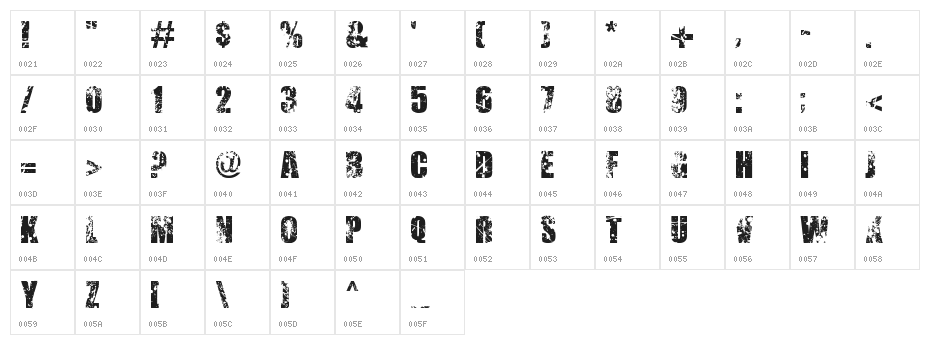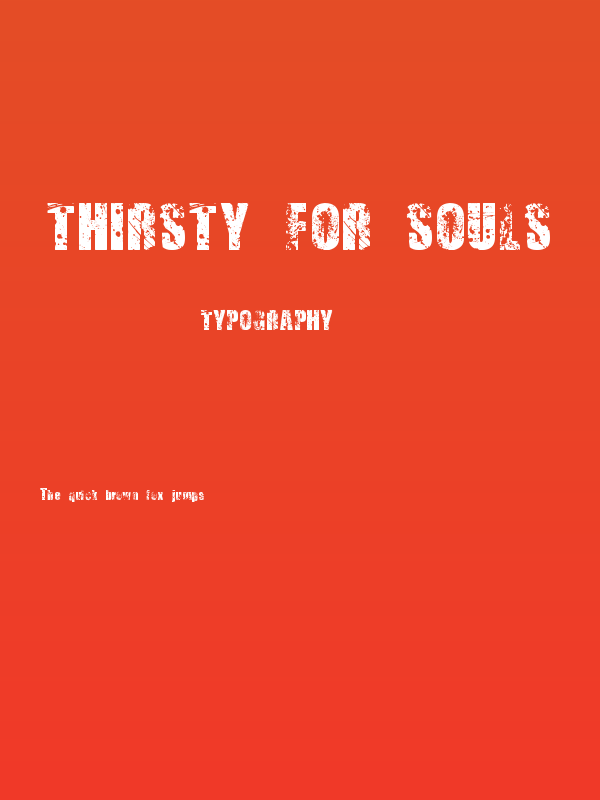
Thirsty for Souls Font
Thirsty for Souls Description
This font features a bold, distressed style with a grunge texture that gives it a rugged and edgy appearance. The characters are heavily weathered, creating a sense of decay and erosion, which adds a unique, artistic flair. The uppercase and lowercase letters, along with numbers and special characters, all share this distressed look, making it ideal for projects that require a raw and gritty aesthetic. The font's boldness ensures it stands out, while the irregular texture adds depth and character.
Overall StyleGrunge, Edgy, Artistic
Use CaseHeadlines, Posters, Album covers
Proposed ProjectsIdeal for album covers, posters, urban-themed designs, and any project needing a gritty, raw aesthetic.